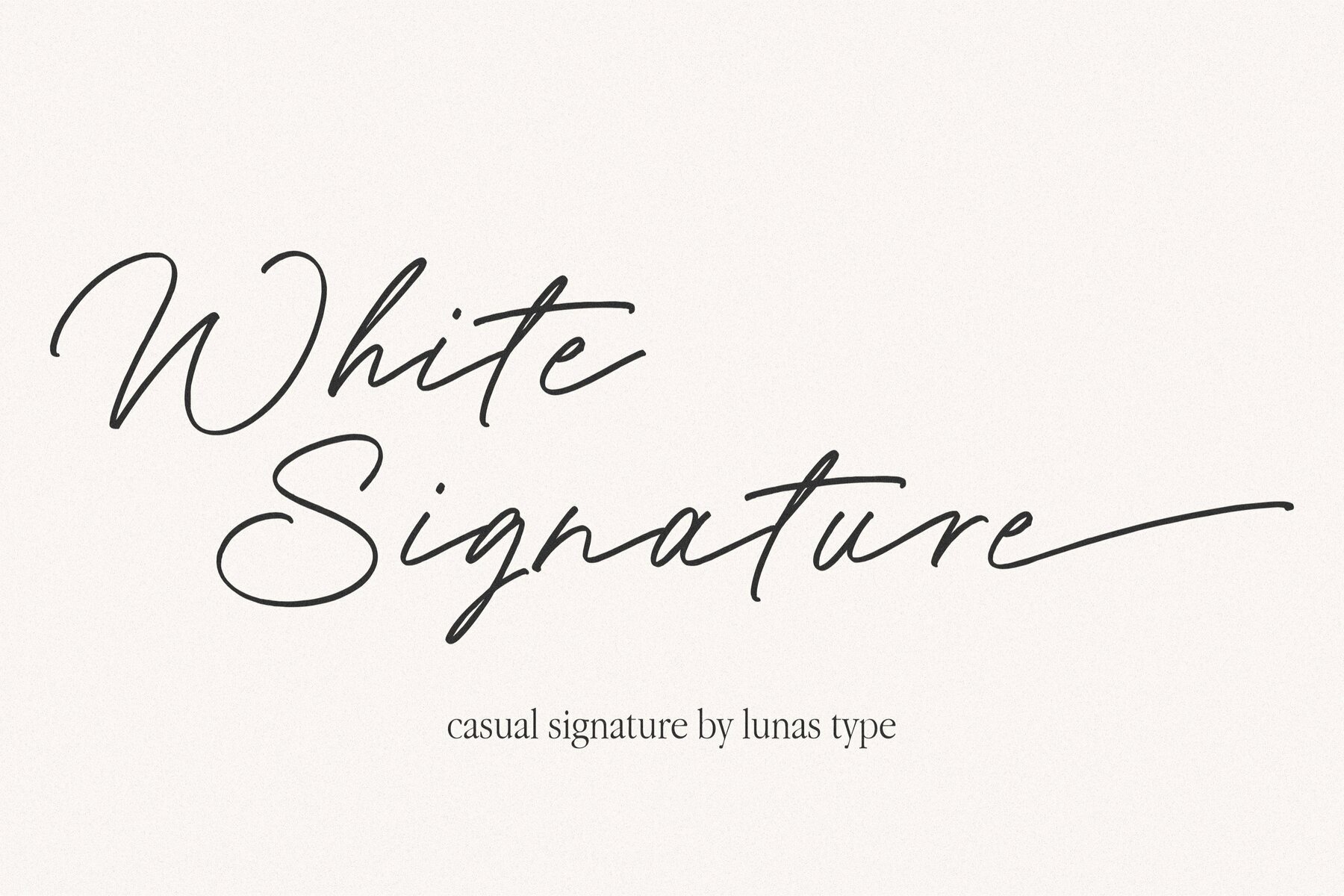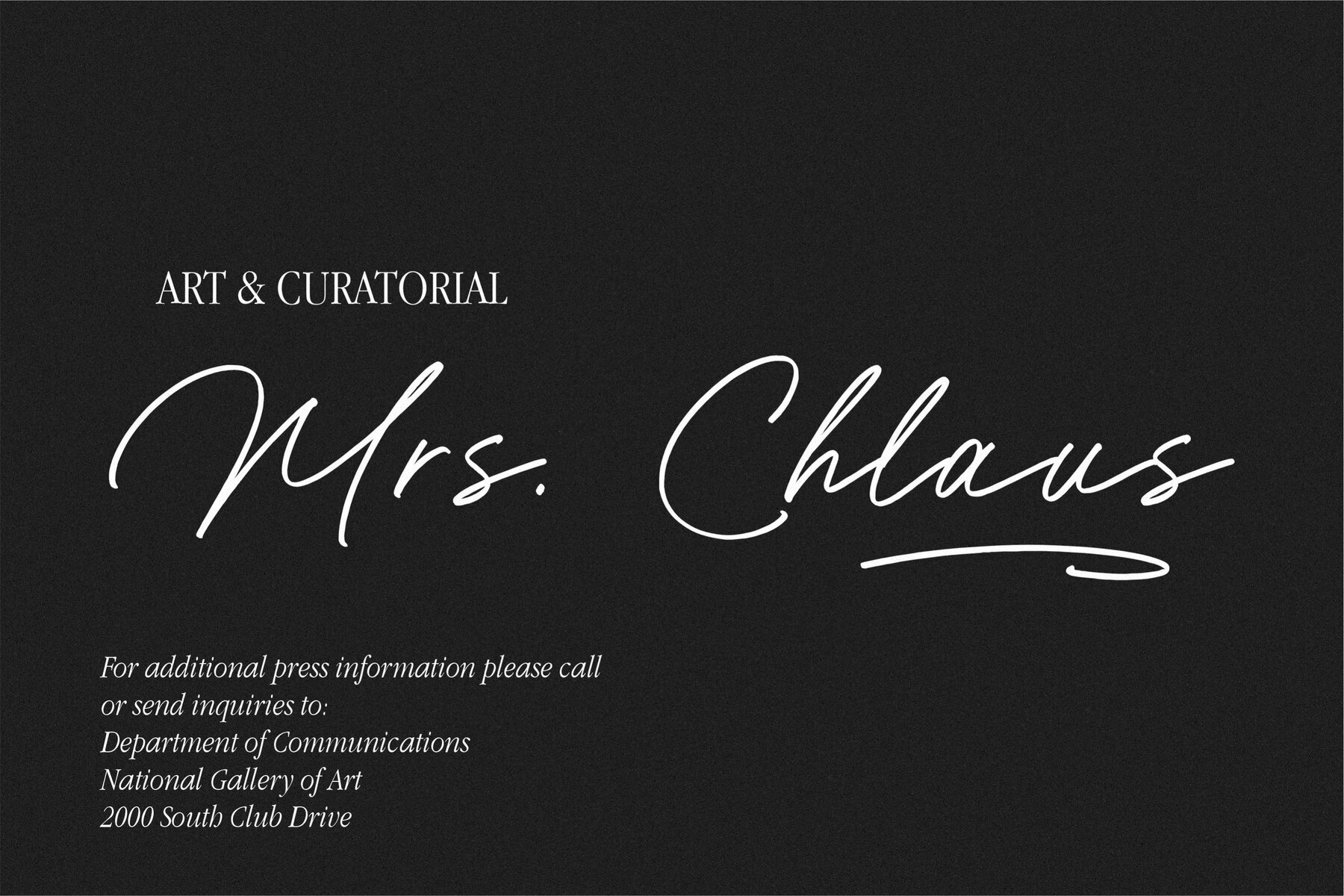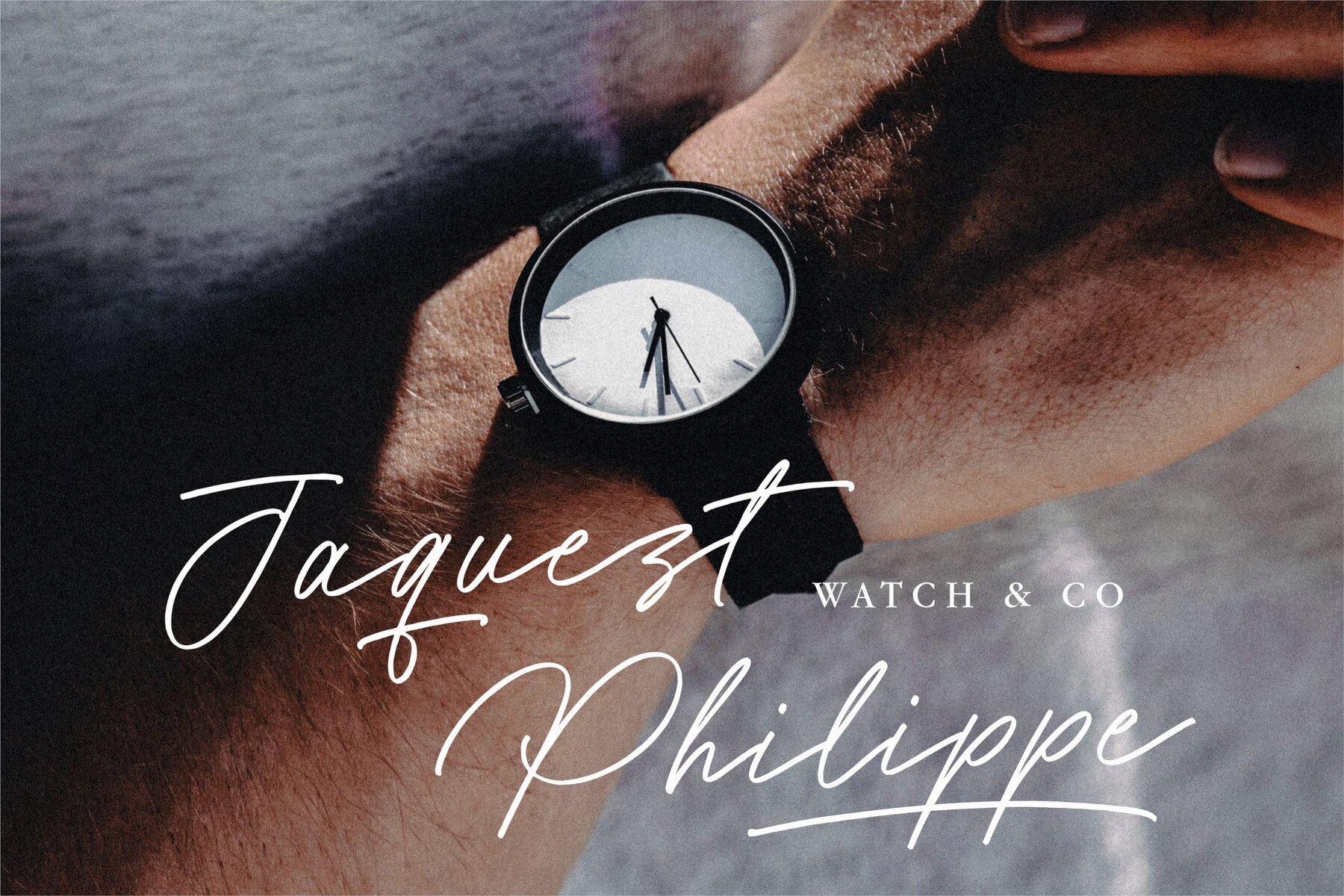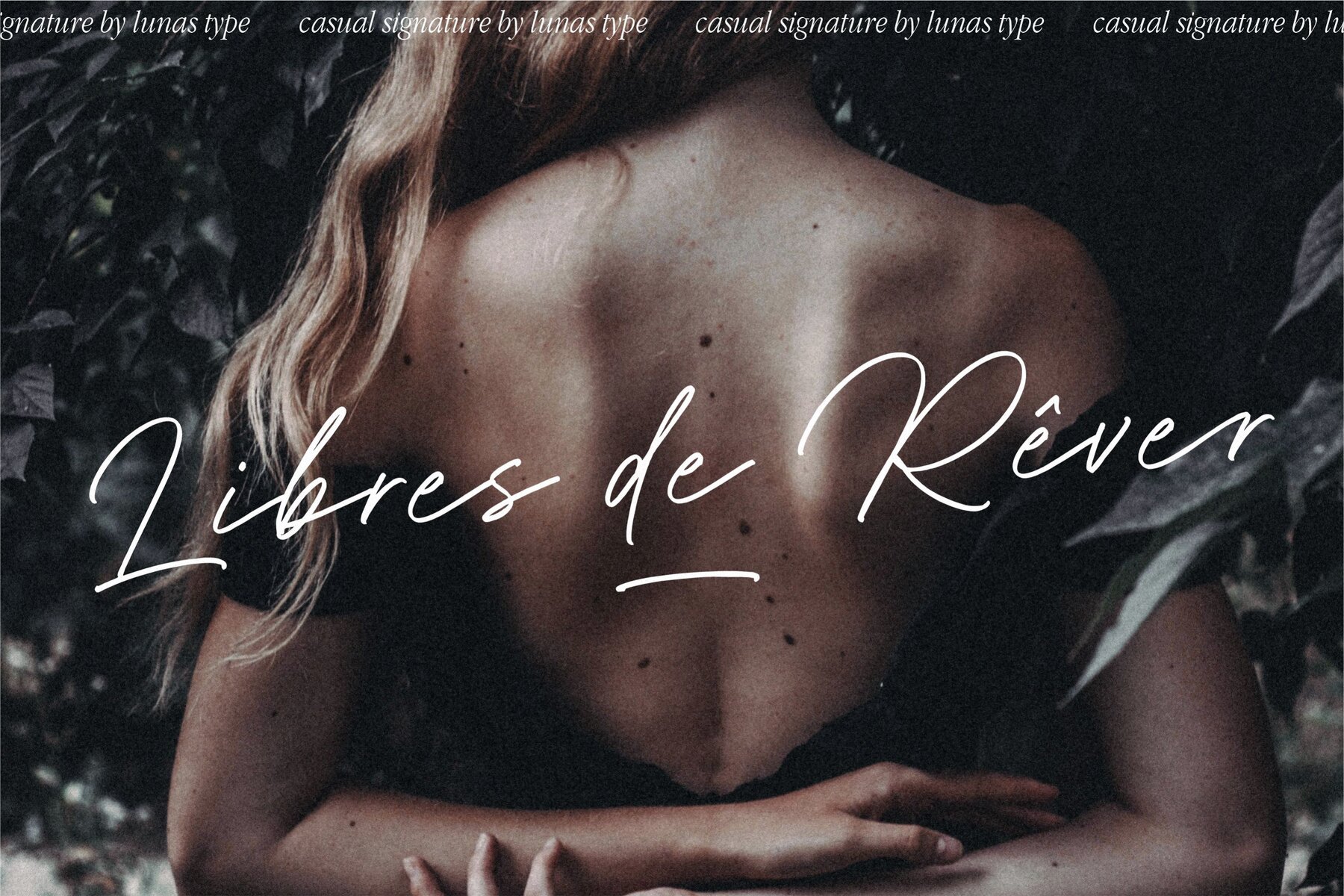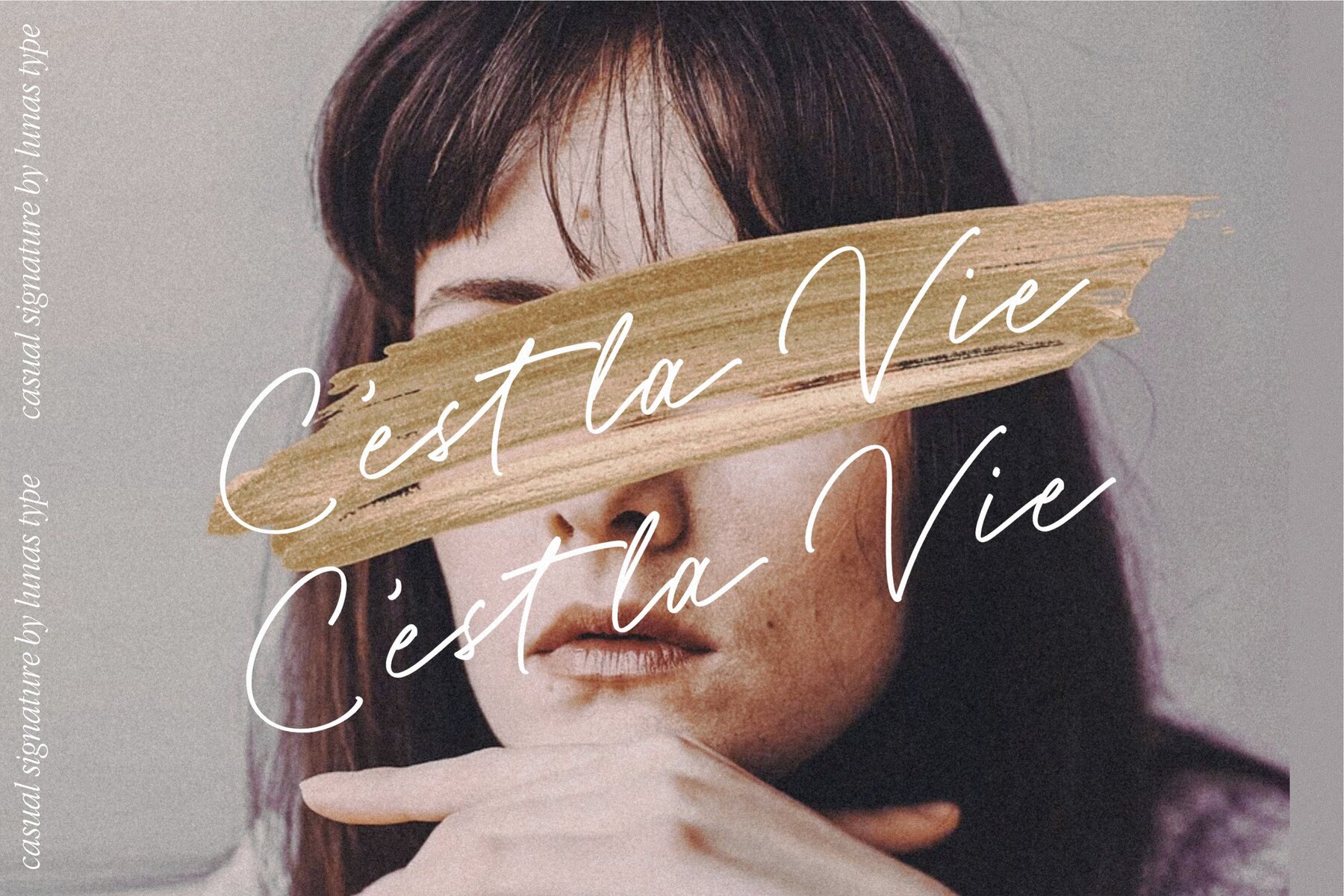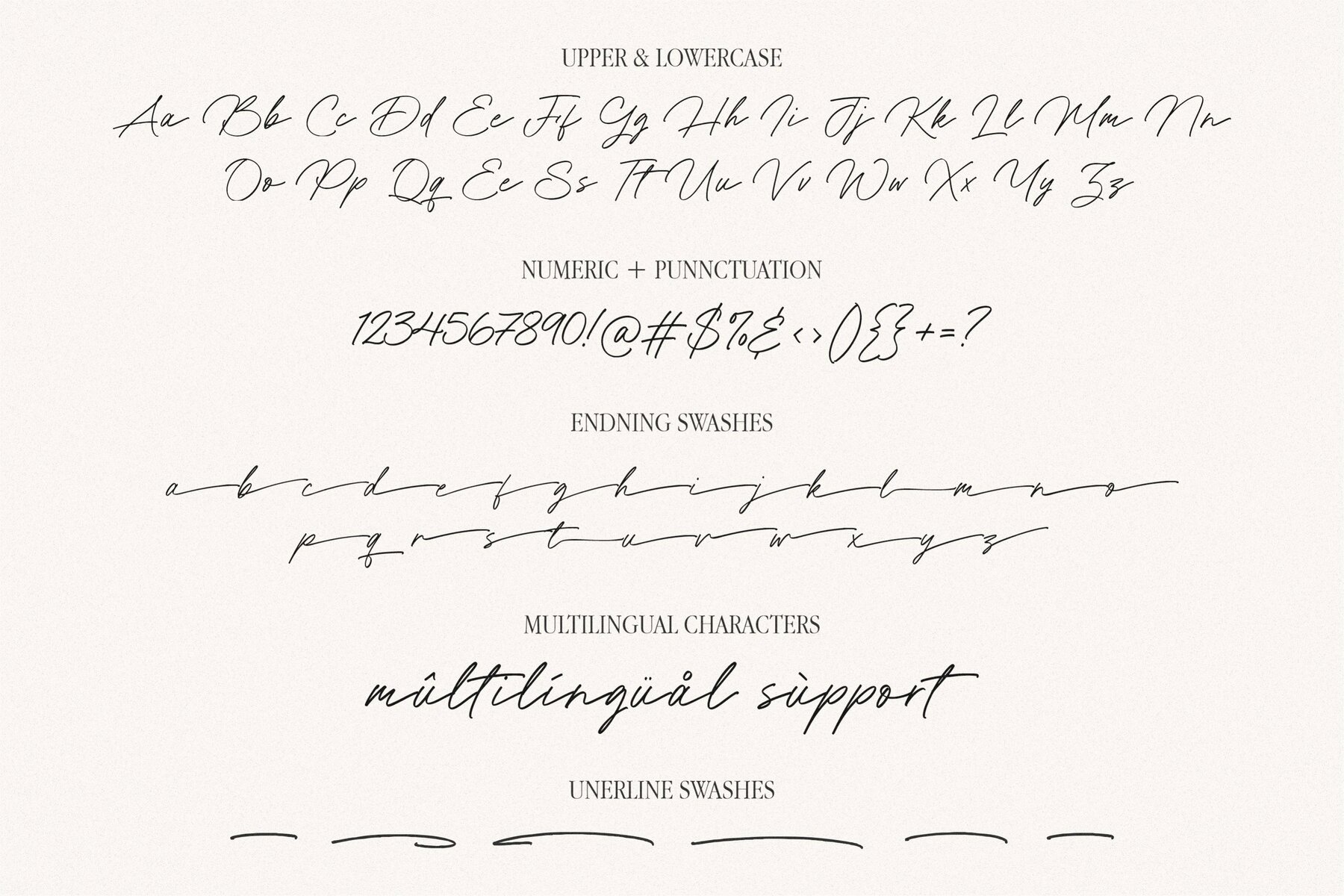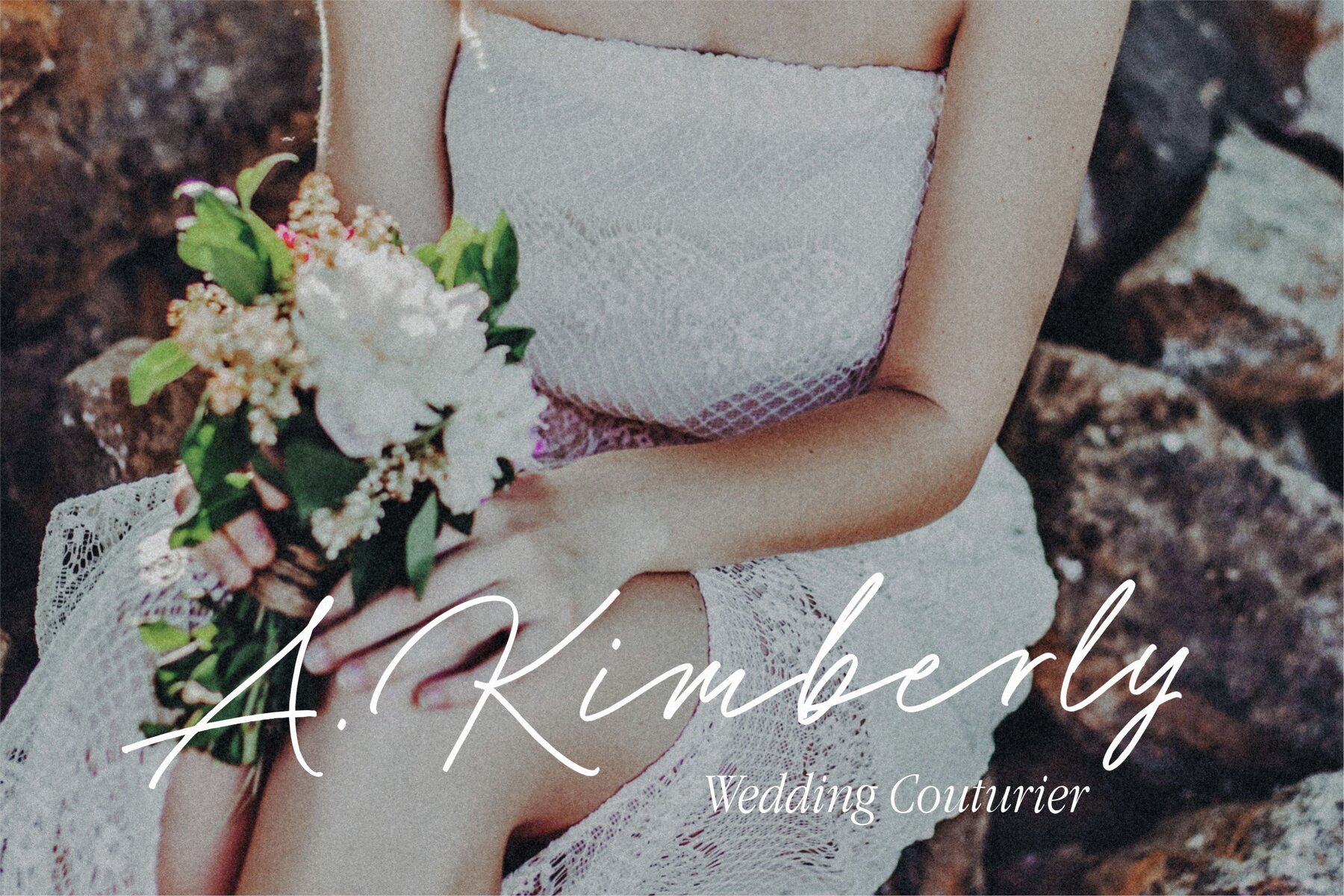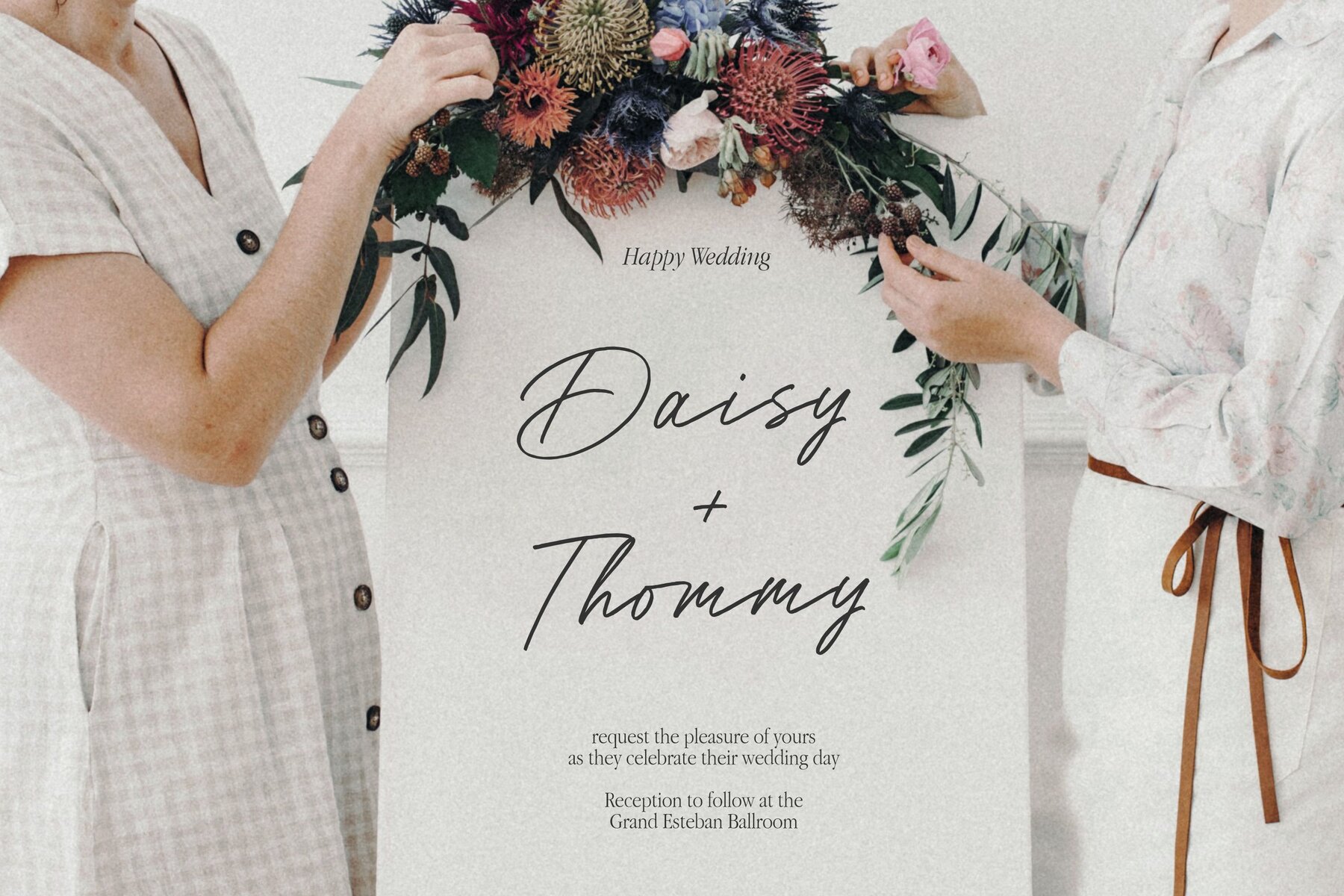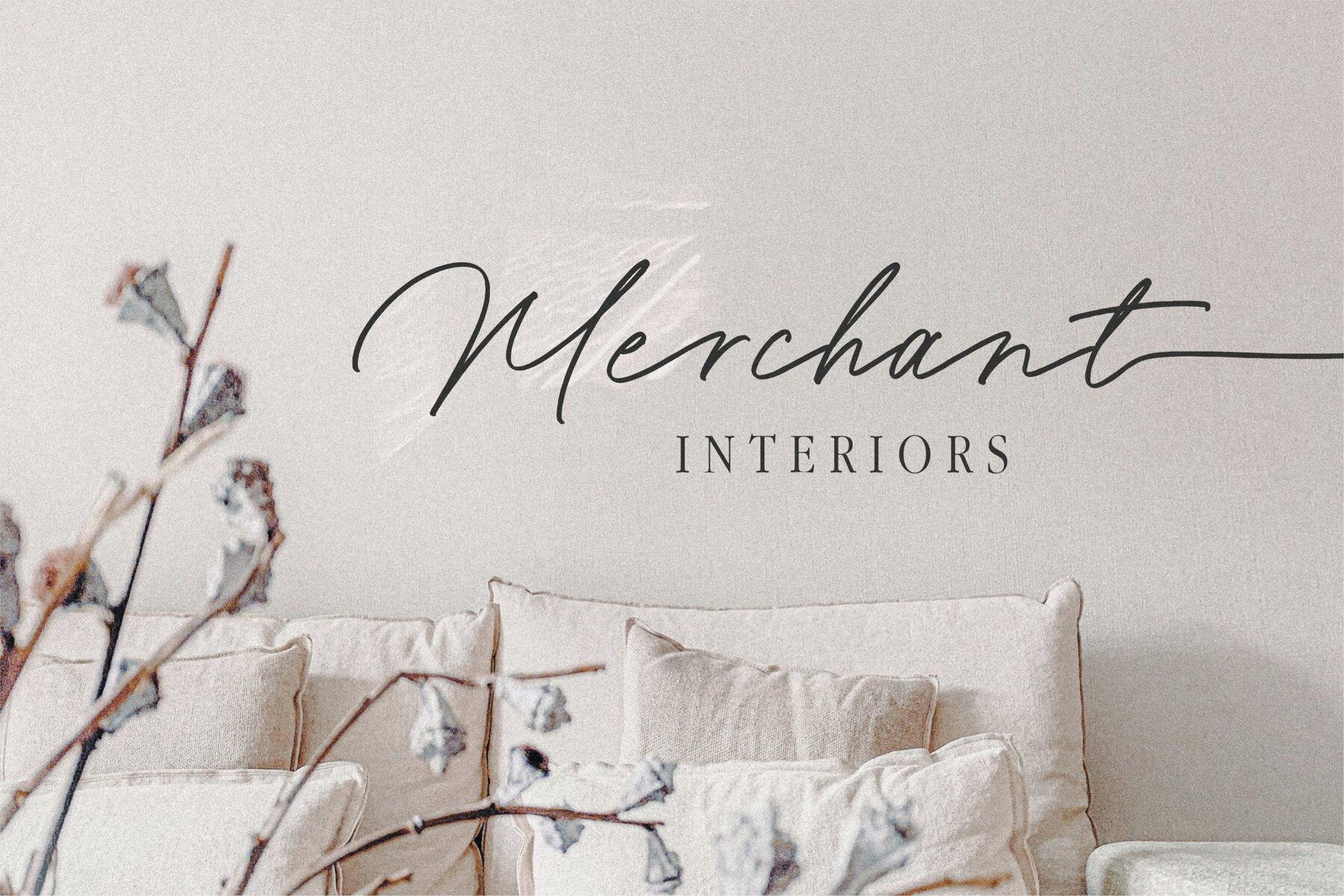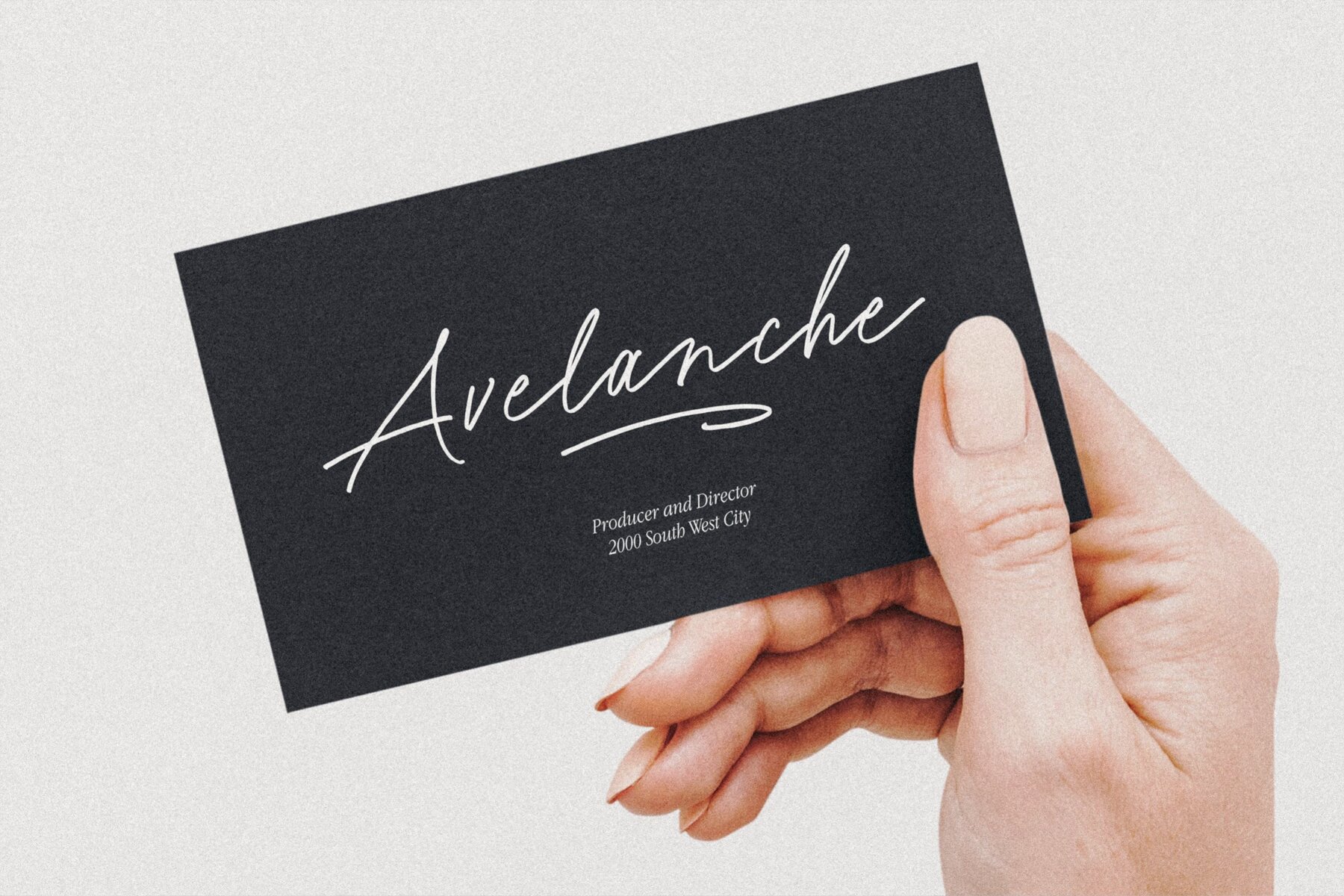
White Signature Font
White Signature Regular
Introducing, White Signature! A versatile and captivating font that combines the casual charm of handwriting with the elegance of a signature style. This font is designed to elevate various design needs, offering a perfect balance between approachability and sophistication.With its fluid letterforms and relaxed strokes,White Signature brings a sense of authenticity and personality to any project. Whether used for branding, invitations, packaging, or social media graphics, this font adds a touch of refinement and individuality.Let White Signature be your go-to choice for creating designs that exude a casual yet elegant vibe, making a lasting impression on your audience. What's you get : - OTF, TTF
- Ending Swashes & Underline Swashes
- Numeral & Punctuation.
- Ligature.
- Multilingual Support.